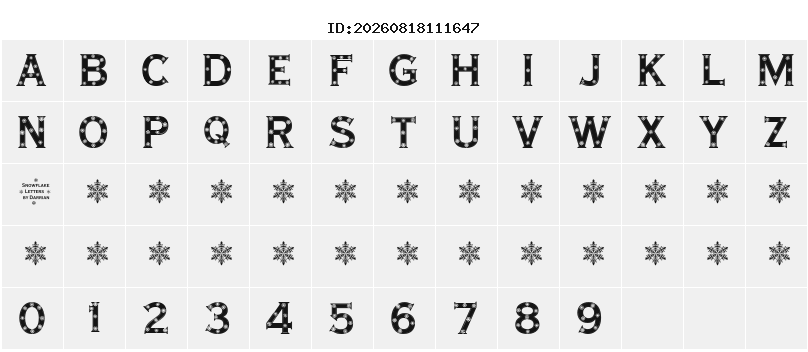
• Font Name: Snowflake Letters
• Font Style: Extra-expanded
• Full Font Name: Snowflake Letters
• PostScript Name: SnowflakeLetters
• Character Count: 83
Snowflake Letters.ttf is a modern, elegant sans-serif font designed for ultimate readability and visual harmony. Perfect for branding, headlines, web design, and print materials.